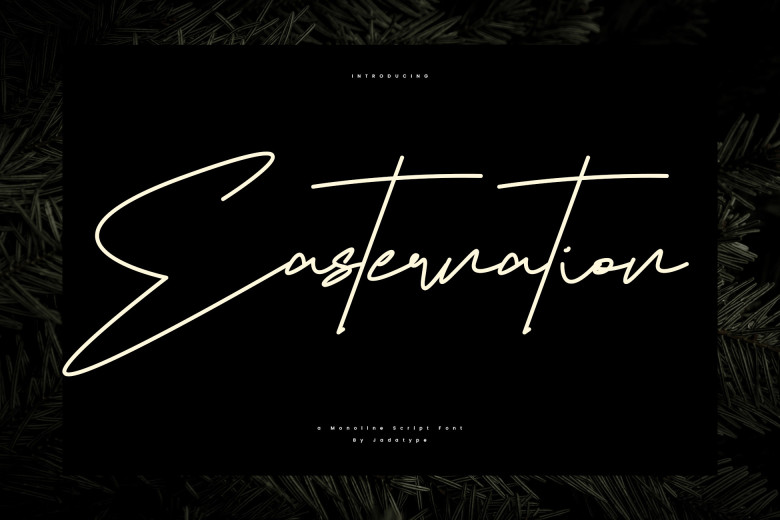
Easternation Font
Easternation is a stylish script monoline font. It’s suitable for photography, social media, music covers, products, branding, handwritten and many others. Including standard English letters, numbers, punctuation, and several accents that support multilingualism.
Easternation Monoline Script Font